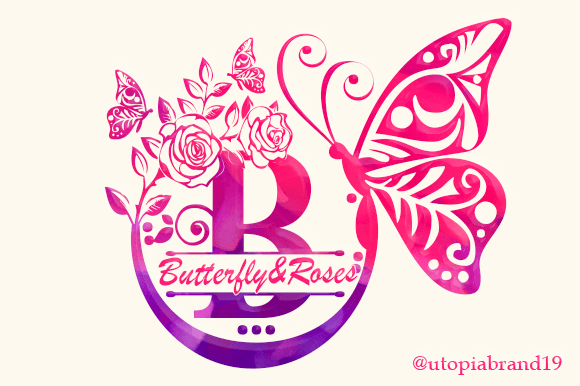
Butterfly and Roses Font: Elevate Your Designs with Elegance
Are you looking for a font that exudes elegance and sophistication? Look no further than the Butterfly and Roses font. This beautiful decorative font is perfect for creating stunning wedding invitations, stationary art, social media posts, and greeting cards. In this article, we’ll dive into the world of Butterfly and Roses font, exploring its features, uses, and benefits.
What is Butterfly and Roses Font?
Butterfly and Roses is an elegant decorative font that features lovely ornaments. Its authentic feel is sure to capture your heart, and its versatility makes it a great addition to any design project. The font is designed to add a touch of whimsy and romance to your creations, making it perfect for a variety of applications.
Key Features of Butterfly and Roses Font
- Elegant and Decorative: The font boasts an elegant and decorative style, perfect for creating beautiful and eye-catching designs.
- Lovely Ornaments: The font features lovely ornaments that add a touch of whimsy and romance to your creations.
- Authentic Feel: The font has an authentic feel that is sure to capture your heart and inspire your designs.
- Versatile: The font is versatile and can be used for a variety of design projects, from wedding invitations to social media posts.
Uses of Butterfly and Roses Font
The Butterfly and Roses font is perfect for a variety of design projects, including:
- Wedding Invitations: Create stunning wedding invitations that set the tone for the big day.
- Stationary Art: Design beautiful stationary art that adds a touch of elegance to any room.
- Social Media Posts: Create eye-catching social media posts that grab attention and inspire engagement.
- Greeting Cards: Design cute and creative greeting cards for special occasions.
Benefits of Using Butterfly and Roses Font
Using the Butterfly and Roses font offers a range of benefits, including:
- Unique and Creative Designs: The font allows you to create unique and creative designs that stand out from the crowd.
- Elegant and Sophisticated: The font adds an touch of elegance and sophistication to your designs, perfect for high-end projects.
Tips for Using Butterfly and Roses Font
Here are some tips for using the Butterfly and Roses font:
- Experiment with Different Sizes: Experiment with different font sizes to find the perfect fit for your design.
- Pair with Other Fonts: Pair the Butterfly and Roses font with other fonts to create a unique and creative design.
- Use for Headings and Titles: Use the font for headings and titles to add a touch of elegance and sophistication.
- Don’t Overuse: Don’t overuse the font – use it sparingly to create a greater impact.
In conclusion, the Butterfly and Roses font is a beautiful and elegant decorative font that is perfect for creating stunning designs. Its lovely ornaments, authentic feel, and versatility make it a great addition to any design project. With its range of uses and benefits, it’s no wonder that this font is a popular choice among designers. So why not give it a try and see how it can elevate your designs?
- What is the Butterfly and Roses font? The Butterfly and Roses font is an elegant decorative font featuring lovely ornaments.
- What can I use the Butterfly and Roses font for? You can use the font for a variety of design projects, including wedding invitations, stationary art, social media posts, and greeting cards.
- Can I pair the Butterfly and Roses font with other fonts? Yes, you can pair the font with other fonts to create a unique and creative design.